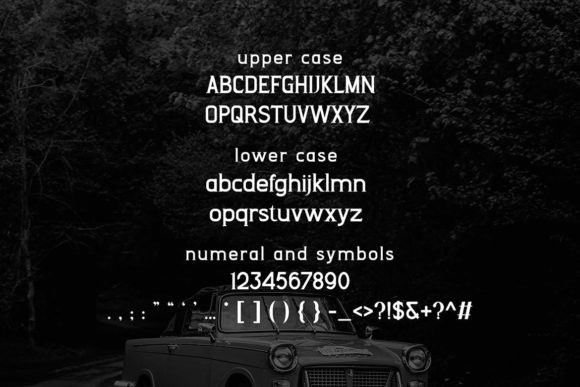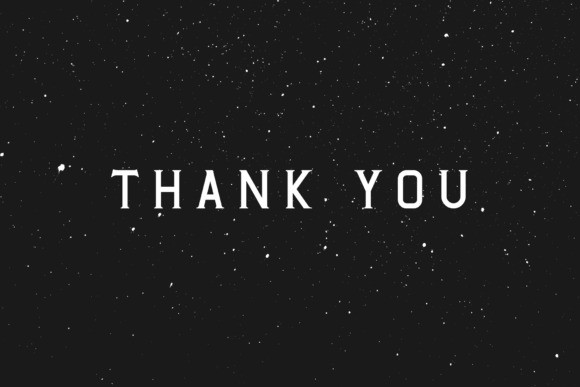
BAGUALA Font
Baguala is a simple, clean, and vintage serif font. It can easily be matched to your digital designing, presentations, or greeting card making, so add this to your creations and take your designs to the next level!